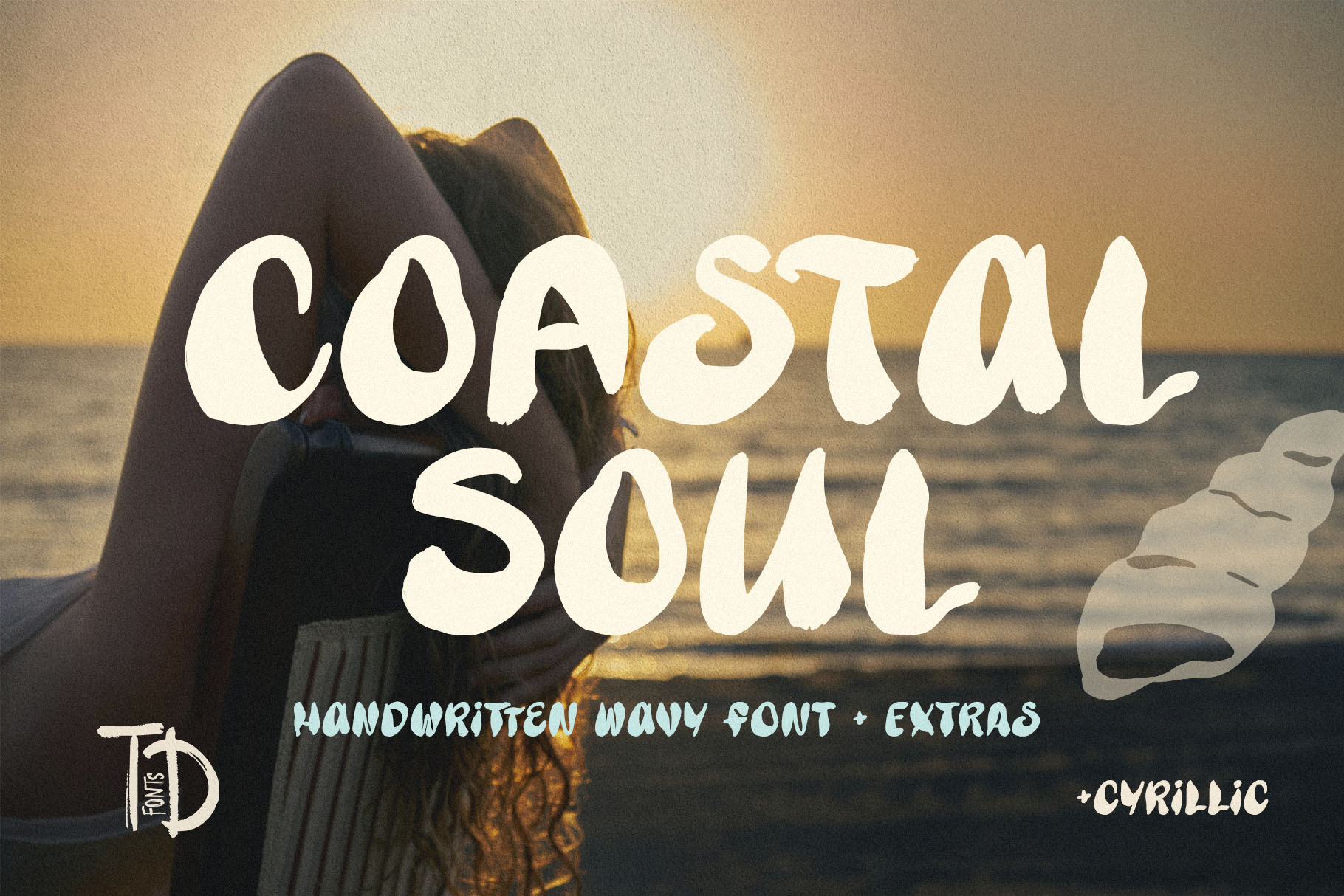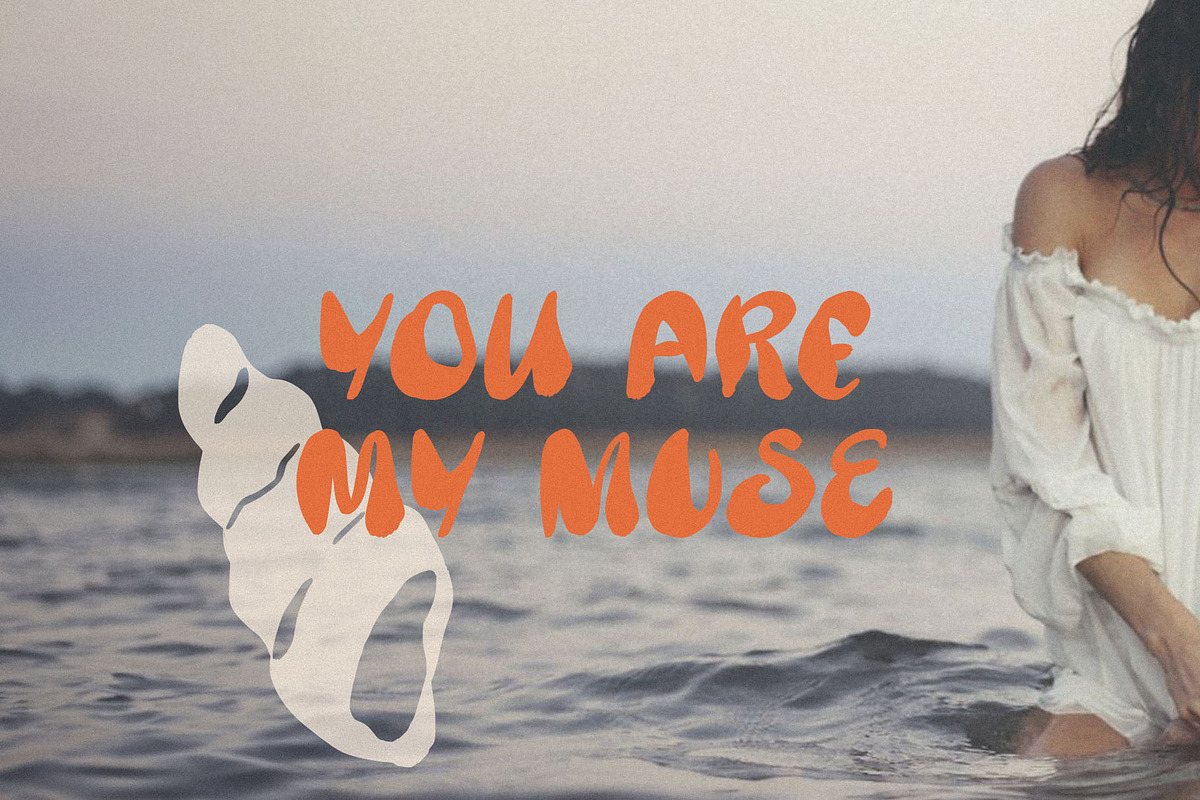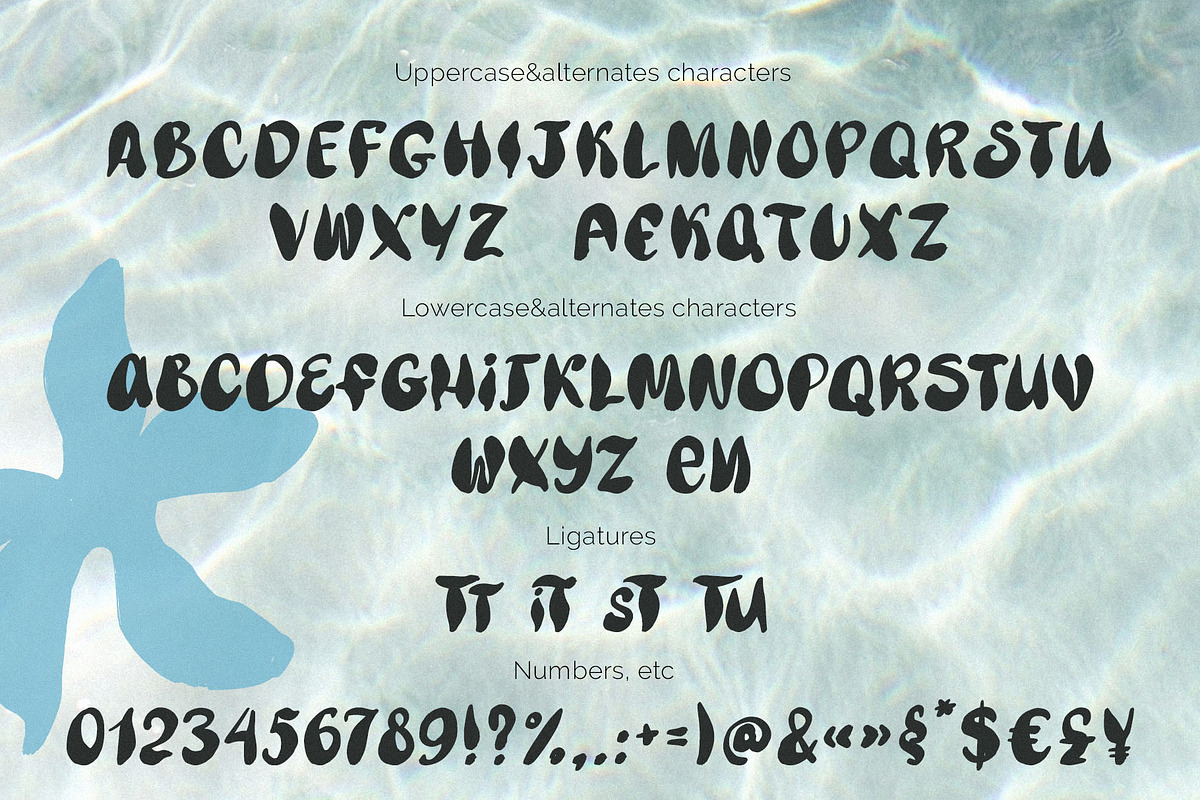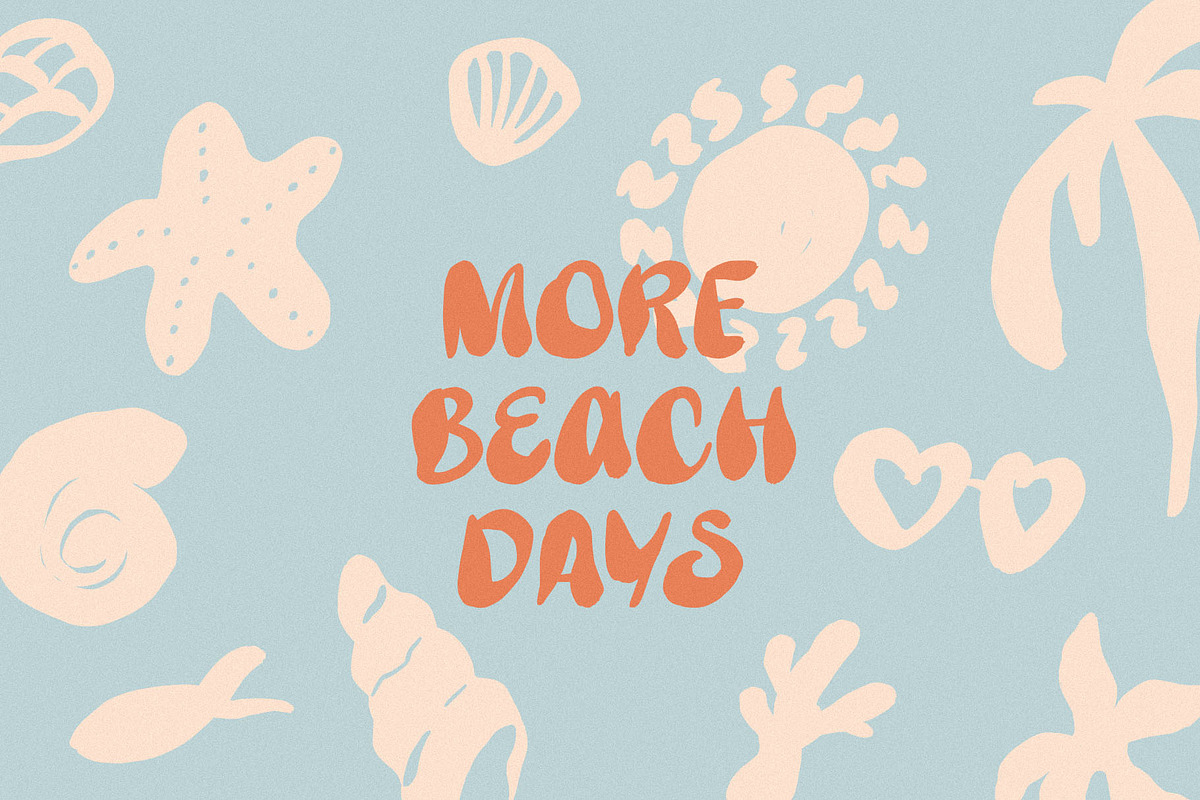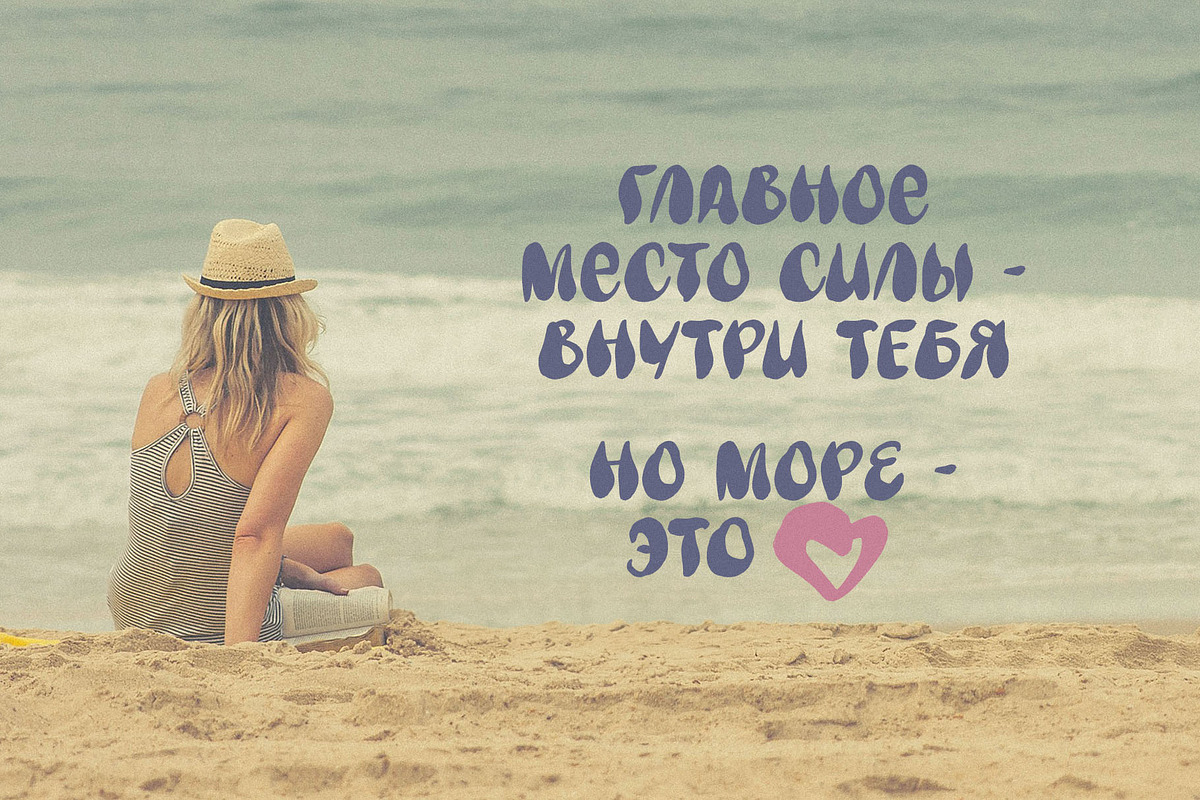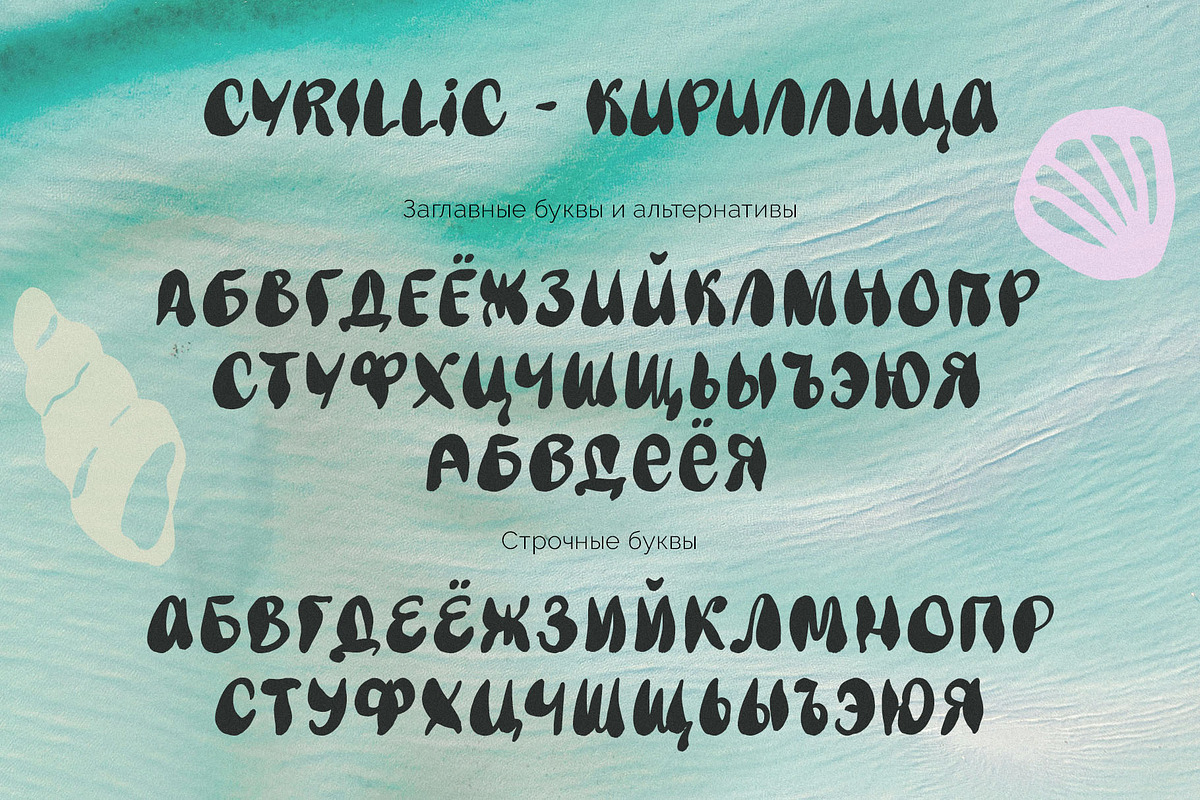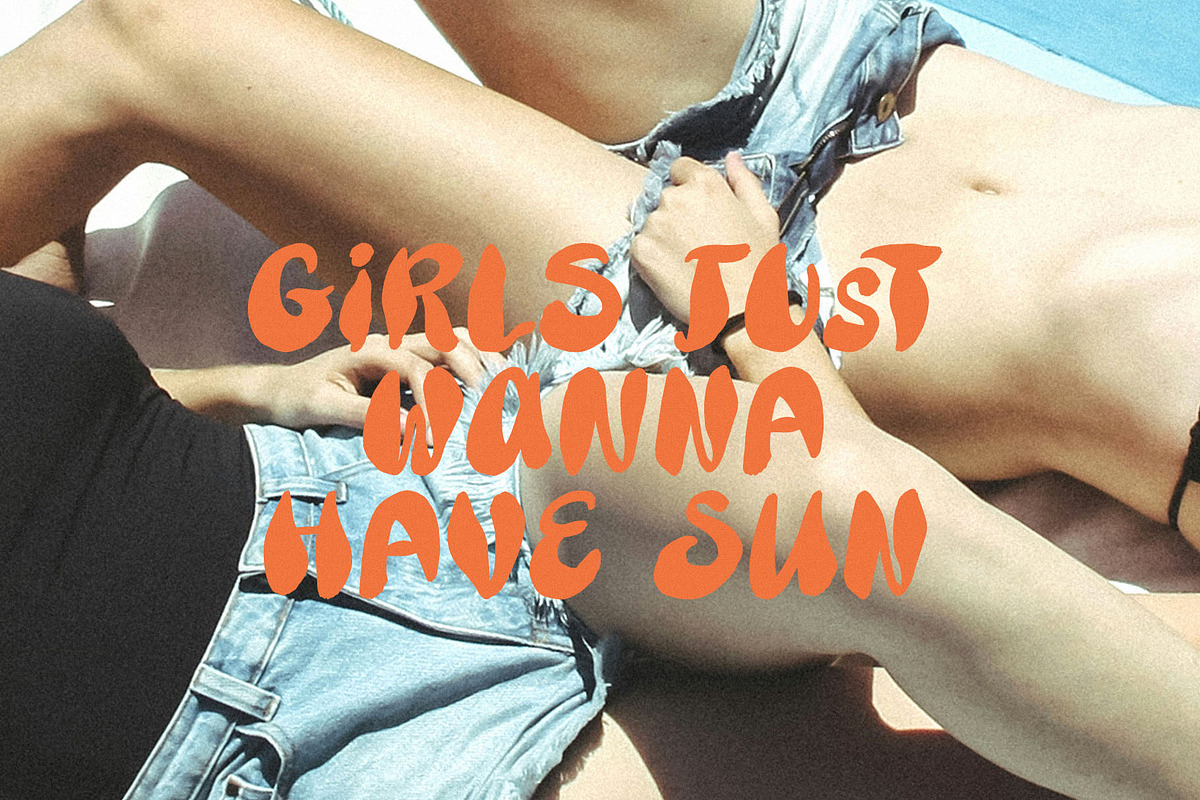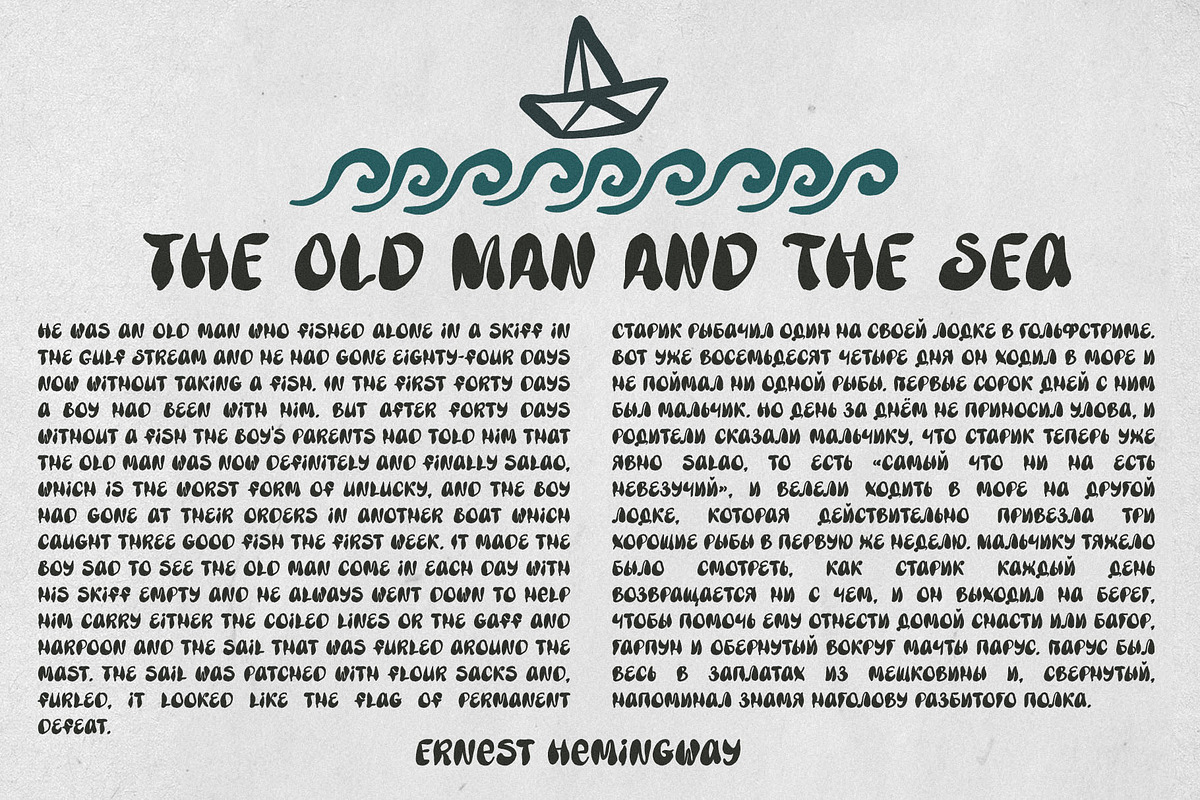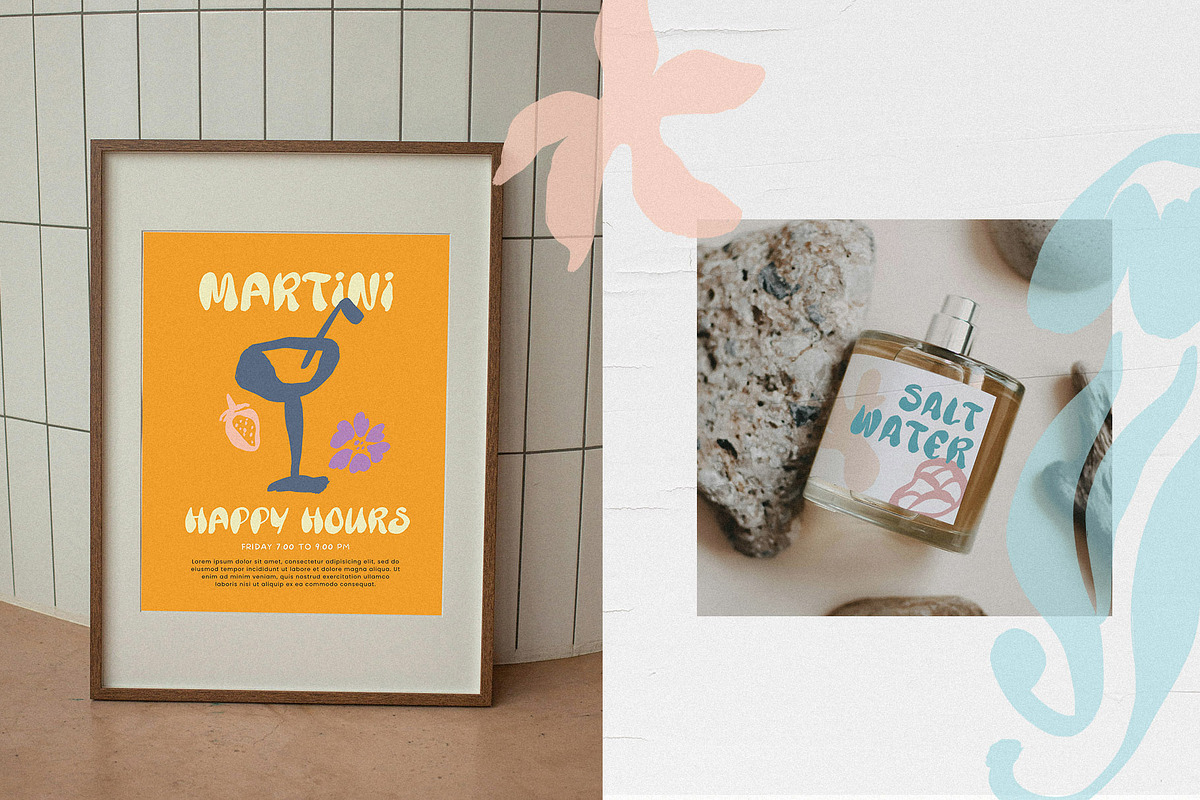
Coastal soul wavy handwritten font
Introducing Coastal Soul Wavy Font - a groovy handwritten font infused with a modern take on retro aesthetics, boho vibes, and sunny beachy energy. Style your designs with Coastal Soul and the included collection of hand-drawn bohemian icons featuring nautical, floral, food, and beverage illustrations. Supports many languages, including Cyrillic.
The smooth curves and extensive alternate letterforms make Coastal Soul the perfect font for designing modern posters, branding, logo design, headlines, websites, packaging, social media quotes, and advertising.
Add a touch of sunshine, beachy vibes, and a sense of summery seaside bliss to your projects and designs in minutes.
Coastal Soul has extensive language support, it includes English, French, German, Italian, Spanish, Portuguese, Danish, Norwegian, Swedish, Finnish, Estonian, Romansh, Turkish, Cyrillic. Need to know if your language is supported? Type any words in the text box below and see if all characters you need are there.